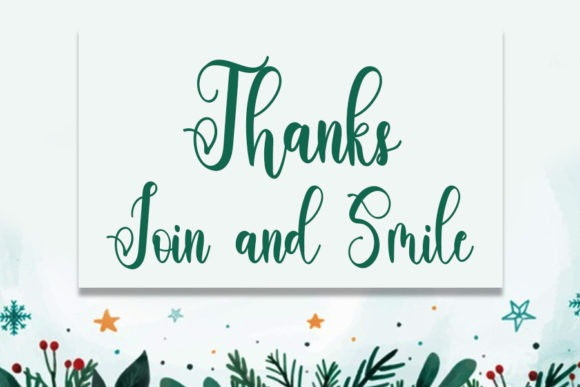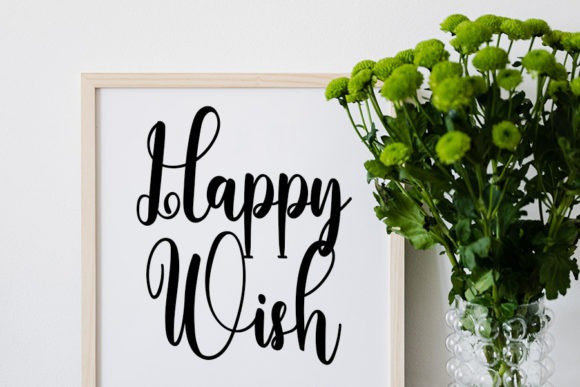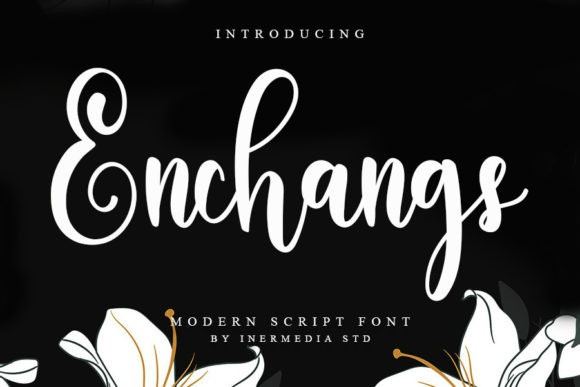
Enchangs Font
Enchangs Calligraphy Font is a delicate, elegant and flowing handwritten font. It has beautiful and well balanced characters and as a result, it matches a wide pool of designs. Add it to your most creative ideas and notice how it makes them come alive!